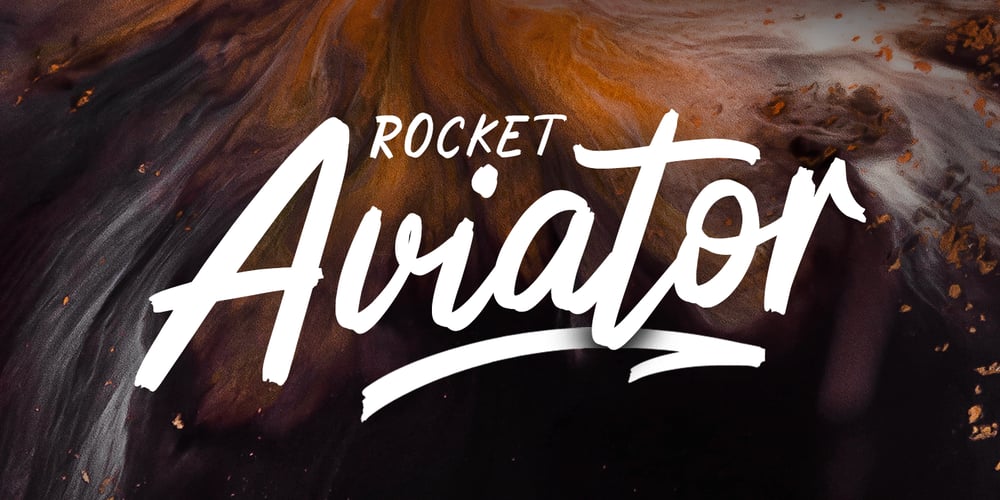
Rocket Aviator Font Family was designed by Mauli Zari and published by Dhan Studio. Rocket Aviator contains 2 styles and family package options. Rocket Aviator is a modern brush font, contemporary design approach, has a bold style and this font also has an underlines that makes your designs more interesting.Suitable for use in title designs such as clothing, invitations, booklets, stationery designs, quotes, branding, logos, greeting cards, t-shirts, packaging designs, posters, and more.